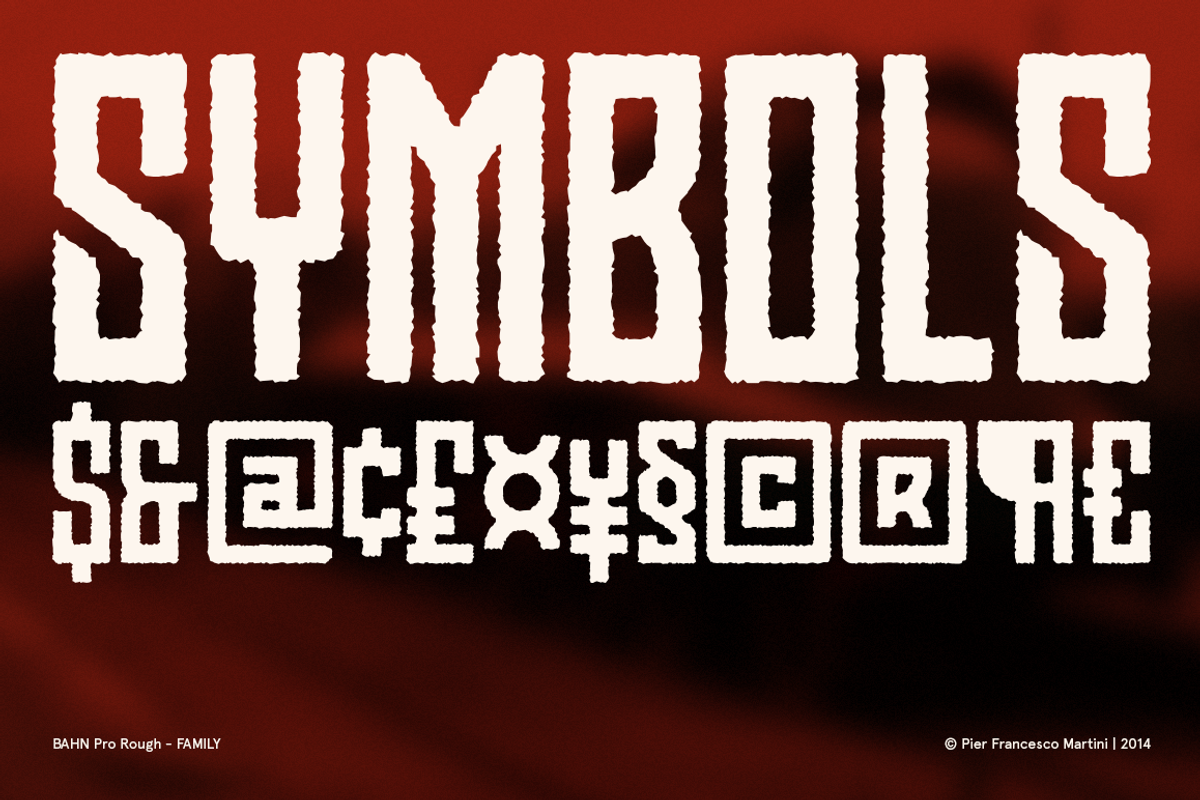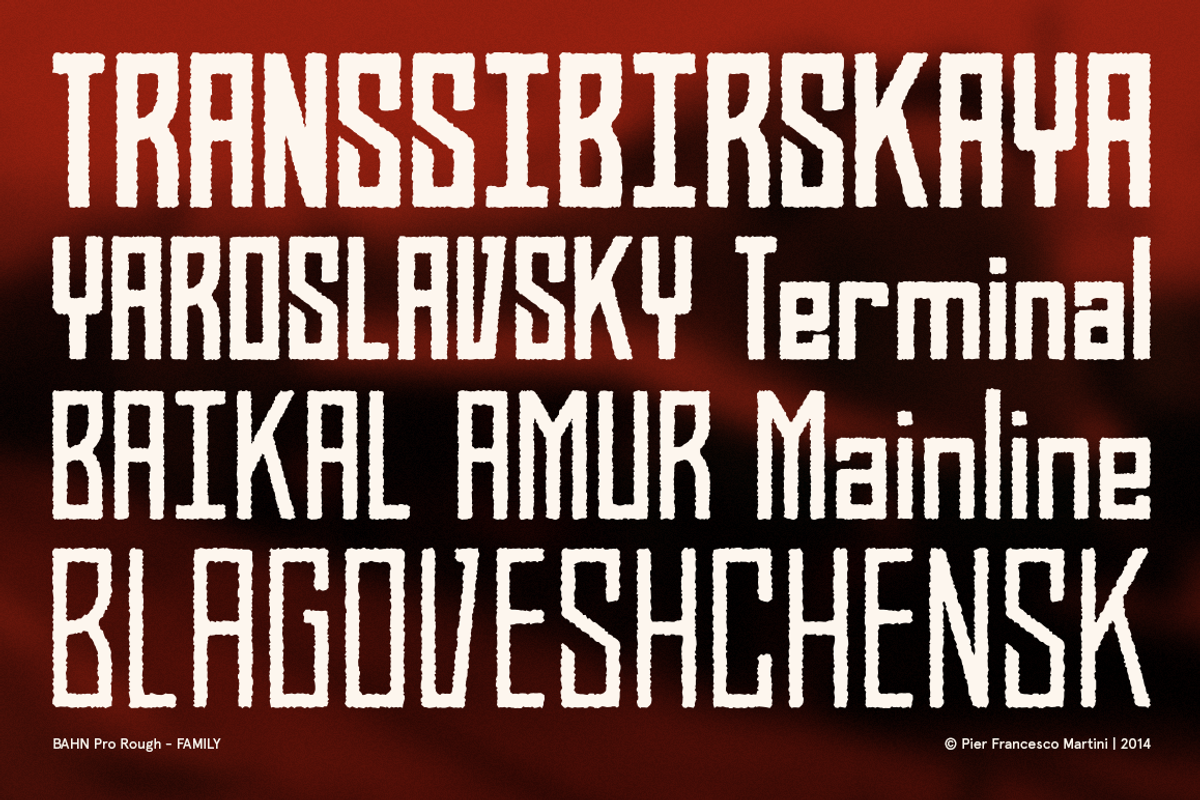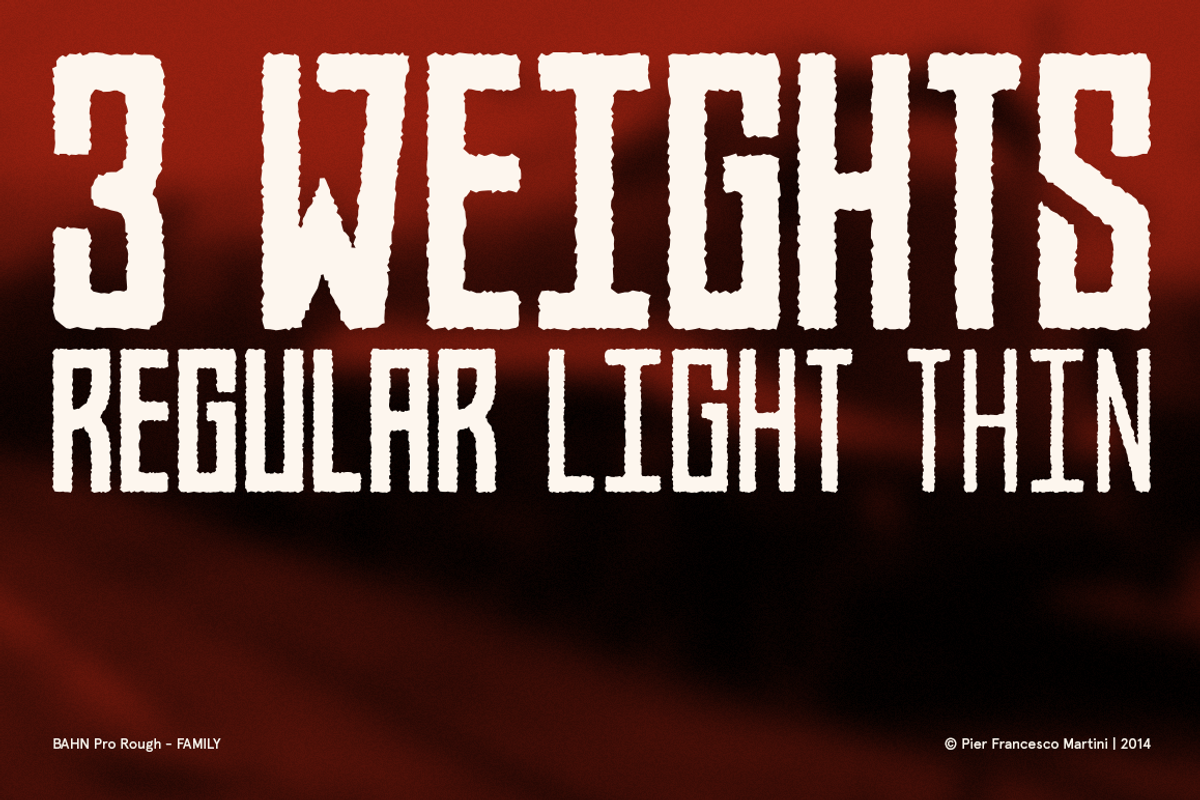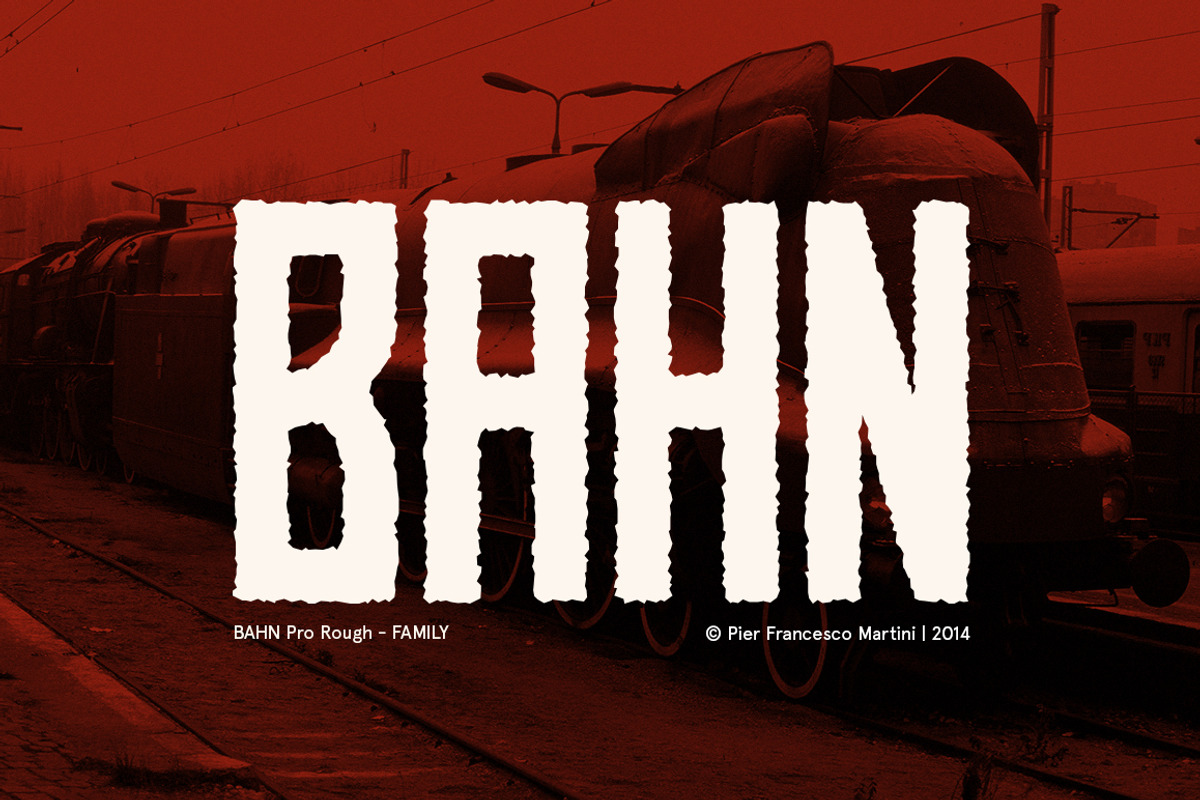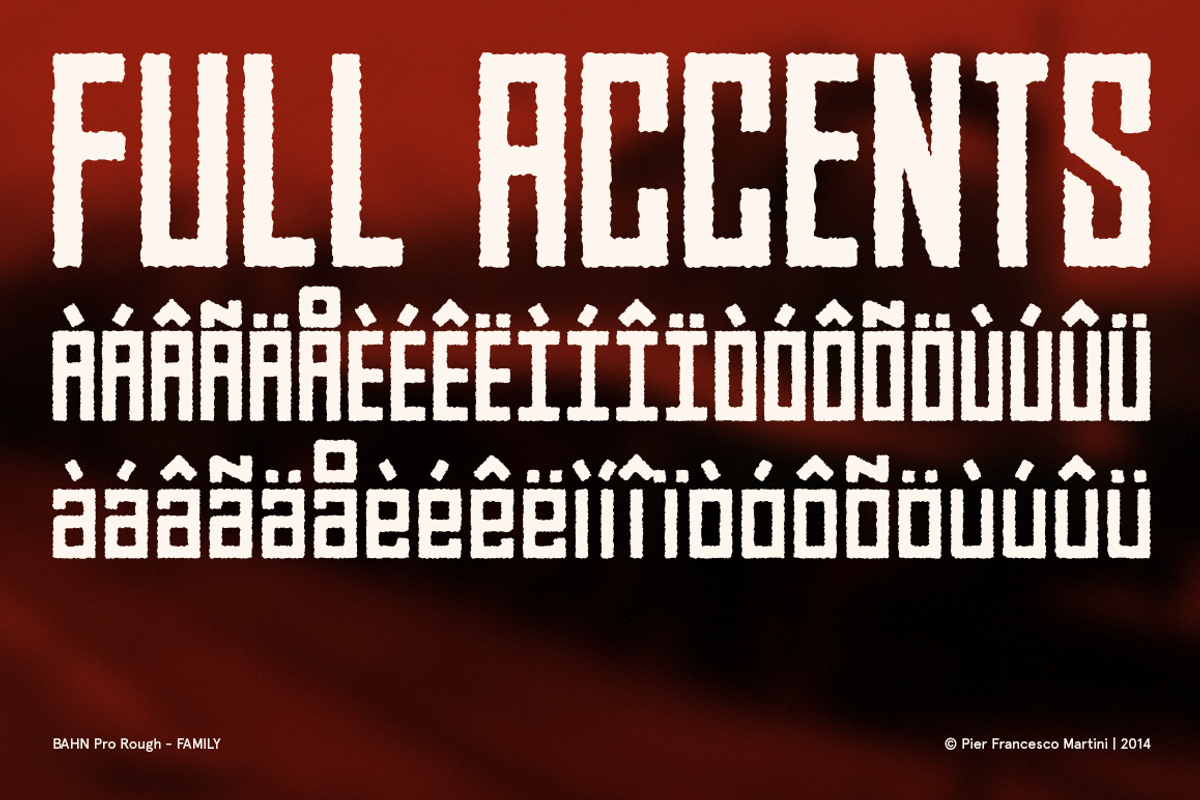
BAHN Pro Rough - FAMILY
BAHN Pro Rough is a "sovietic" version of my bestseller type "BAHN" - http://crtv.mk/tQOv?u=brigat
Rigorous Severe Sovietic
228 glyphs, available in 3 weights. True Type (ttf)
BAHN Pro Rough FAMILY is a striking display typeface crafted for graphic designers, typographers, and type design aficionados who value both nostalgia and contemporary impact. A textured, “Sovietic” reinterpretation of the original BAHN typeface, this version introduces a bold, distressed finish that commands presence while evoking vintage industrial aesthetics.
With 228 glyphs and three distinct weights (Thin, Light, and Regular), the family offers expressive versatility whether you’re designing posters, editorial layouts, branding, or experimental typographic art. The rough edges and subtle imperfections give the font an artisanal texture perfect for projects seeking a gritty, retro edge without sacrificing readability or structure.
Why BAHN Pro Rough is a standout for type enthusiasts:
- Three complementary weights (Thin, Light, Regular) for layered impact and typographic hierarchy
- 228 rich glyphs, including multilingual diacritics and stylistic alternates, enabling sophisticated type setting
- Vintage Sovietic character, combining the strict geometry of rail signage with rough, tactile finish for an unmistakable voice